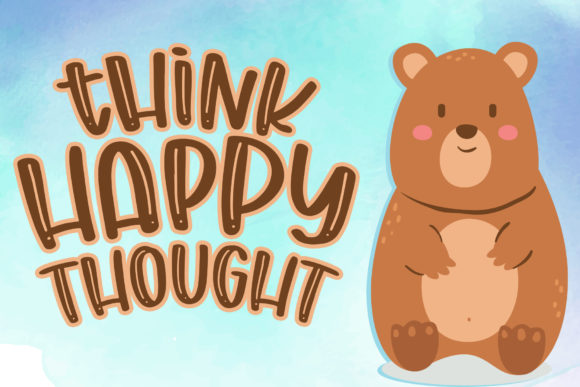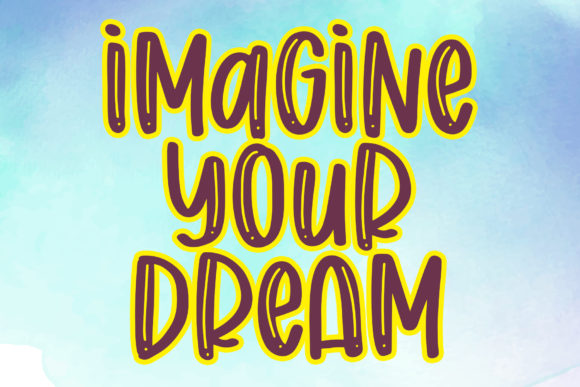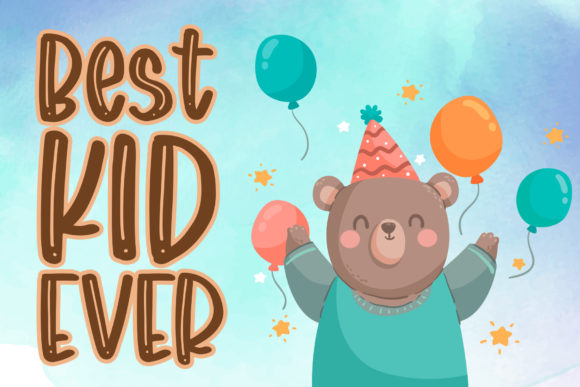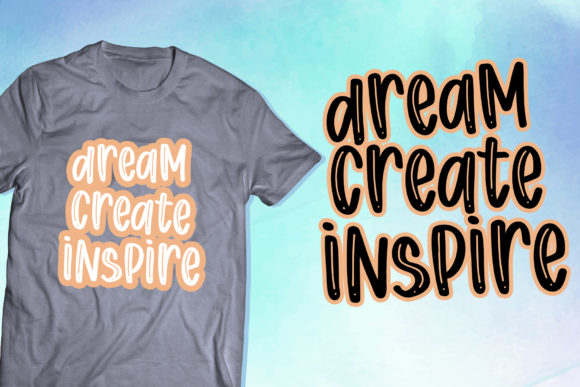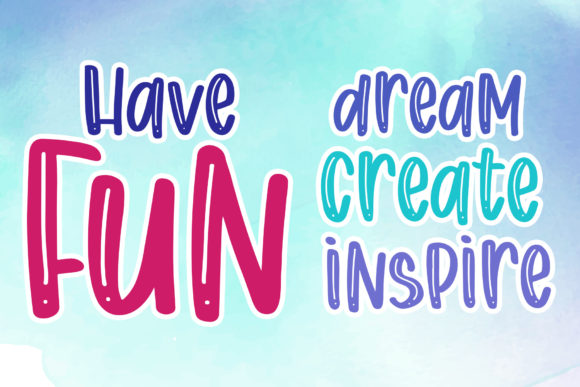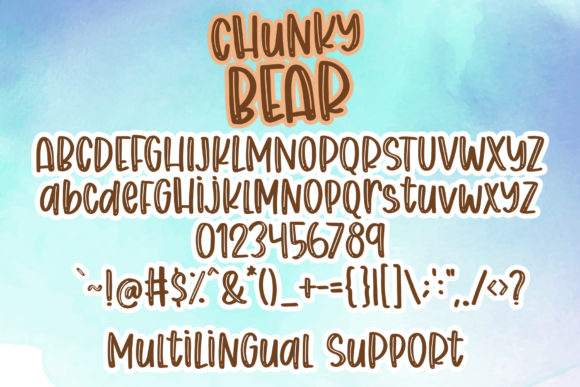
Introduction to Chunky Bear Font
Do you remember the feeling of creating with crayons and markers as a child? The world was a canvas of endless possibilities, and every stroke of the brush brought a smile to your face. As a designer, you’re likely no stranger to that feeling, but it’s not always easy to tap into it. That’s where the Chunky Bear Font comes in – a bubbly, cute, and fun handwritten font that’s sure to bring a touch of childhood magic to your creative projects.
As a designer, you know that the right font can make all the difference in a project. That’s why the Chunky Bear Font is a game-changer – it’s the perfect way to add a touch of whimsy and fun to your creative work.
Key Features of Chunky Bear Font
- Unique, playful design ideal for creative projects and children’s content
- Transparent background option for easy customization and versatility
- Chunky Bear Font comes in 3 different sizes: 72pt, 96pt, and 120pt, for various design needs
- Perfect for use in print and digital media, including logos, graphics, and signage
Honest Review: Chunky Bear Font
I recently had the chance to work with the Chunky Bear Font, and I must say it’s been a great addition to my design resource library. This font is perfect for creating a fun and playful vibe in your creative project.
Here are some key features that I appreciate:
- Transparent background option for seamless integration with any design
- High-quality design that’s perfect for printing or digital use
- Wide range of characters and symbols to choose from
- ⚠️ Limited support for non-English languages
- ⚠️ May not be suitable for formal or professional projects
Overall, I’m impressed with the Chunky Bear Font and would highly recommend it for any creative project that requires a fun and playful touch. Just be aware of its limitations and use it accordingly.
Common Use Cases and Tips
The Chunky Bear Font is ideal for creating playful and whimsical designs. Use it for kids’ party invitations, baby shower decorations, or any other creative project that requires a fun and playful touch. To get the most out of this font, experiment with different font sizes and colors to create a unique and eye-catching design.